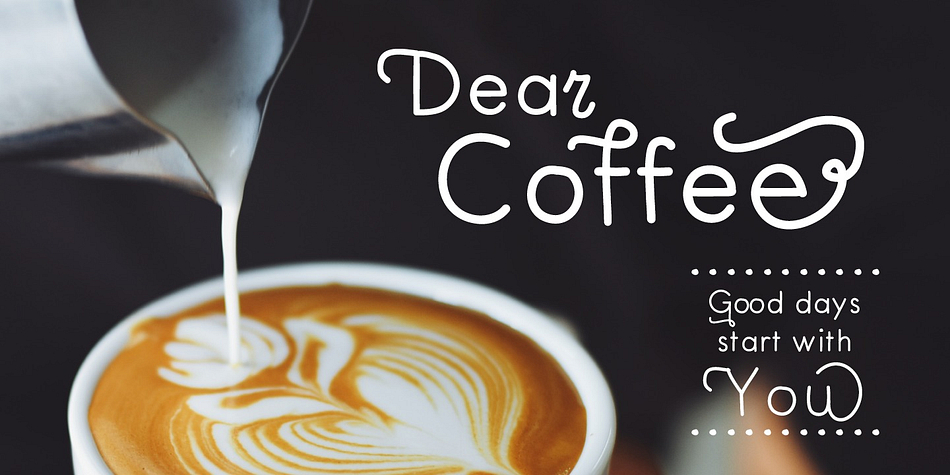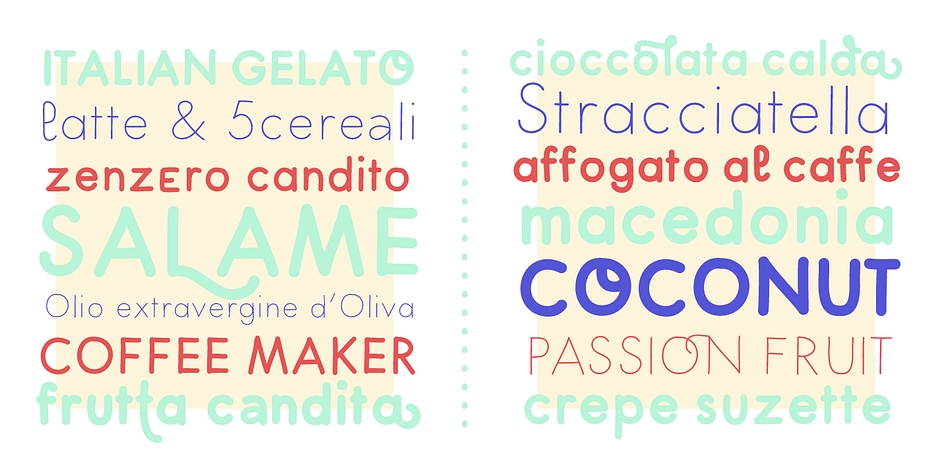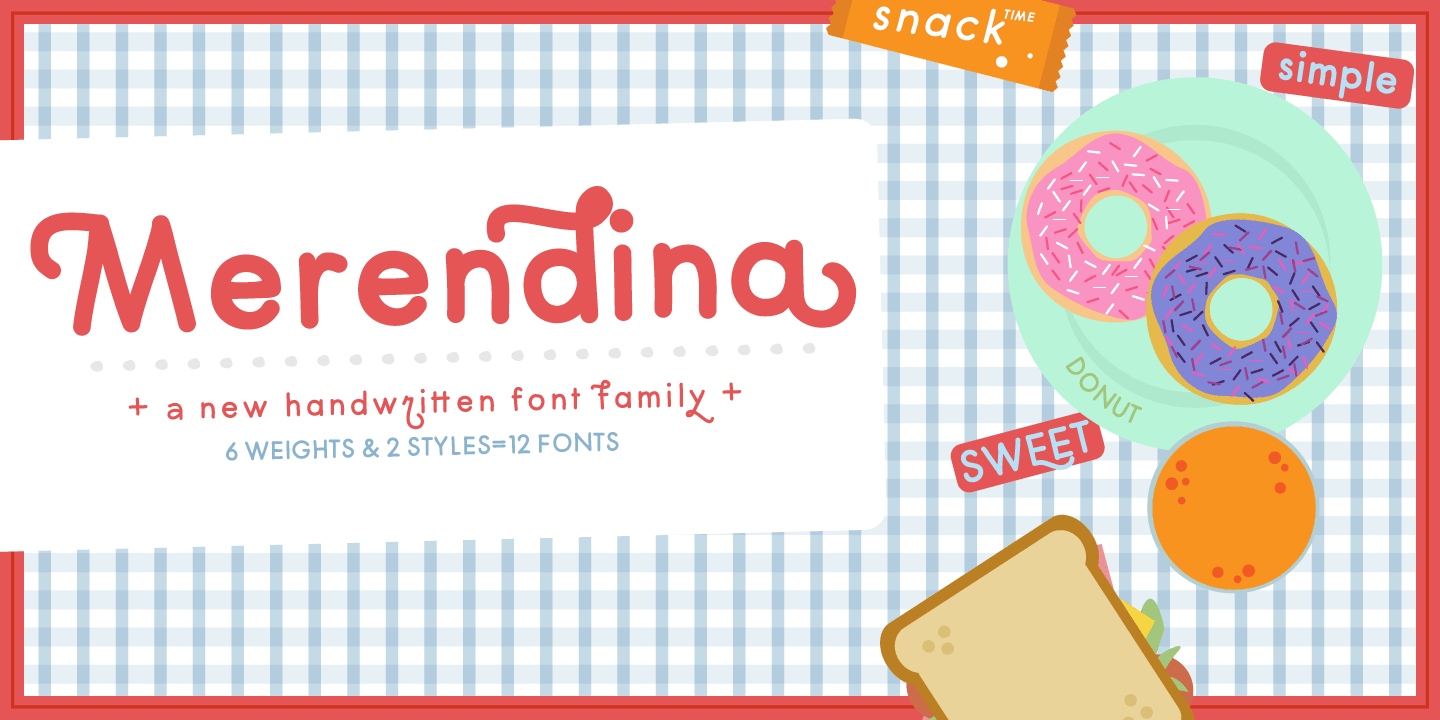
Designed by Paco González and Giuseppe Salerno, Merendina is a hand drawn and kids font family. This typeface has twelve styles and was published by Resistenza.es.
Merendina has a geometric construction with an handwritten touch.
This family contains regular and slanted and 6 weights. Do not miss all the alternates and swashes.